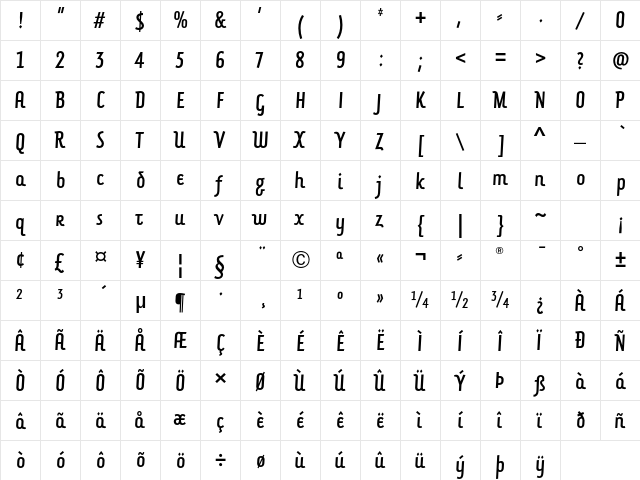
Forkbeard ITC Std Condensed
| Designer | Micheal Gills |
Design Context for Forkbeard ITC Std Typeface
Forkbeard ITC Std takes a measured approach to typography — its balanced proportions and neutral character make it a reliable workhorse for both digital and print work. The condensed width makes it efficient for tight spaces without sacrificing legibility.